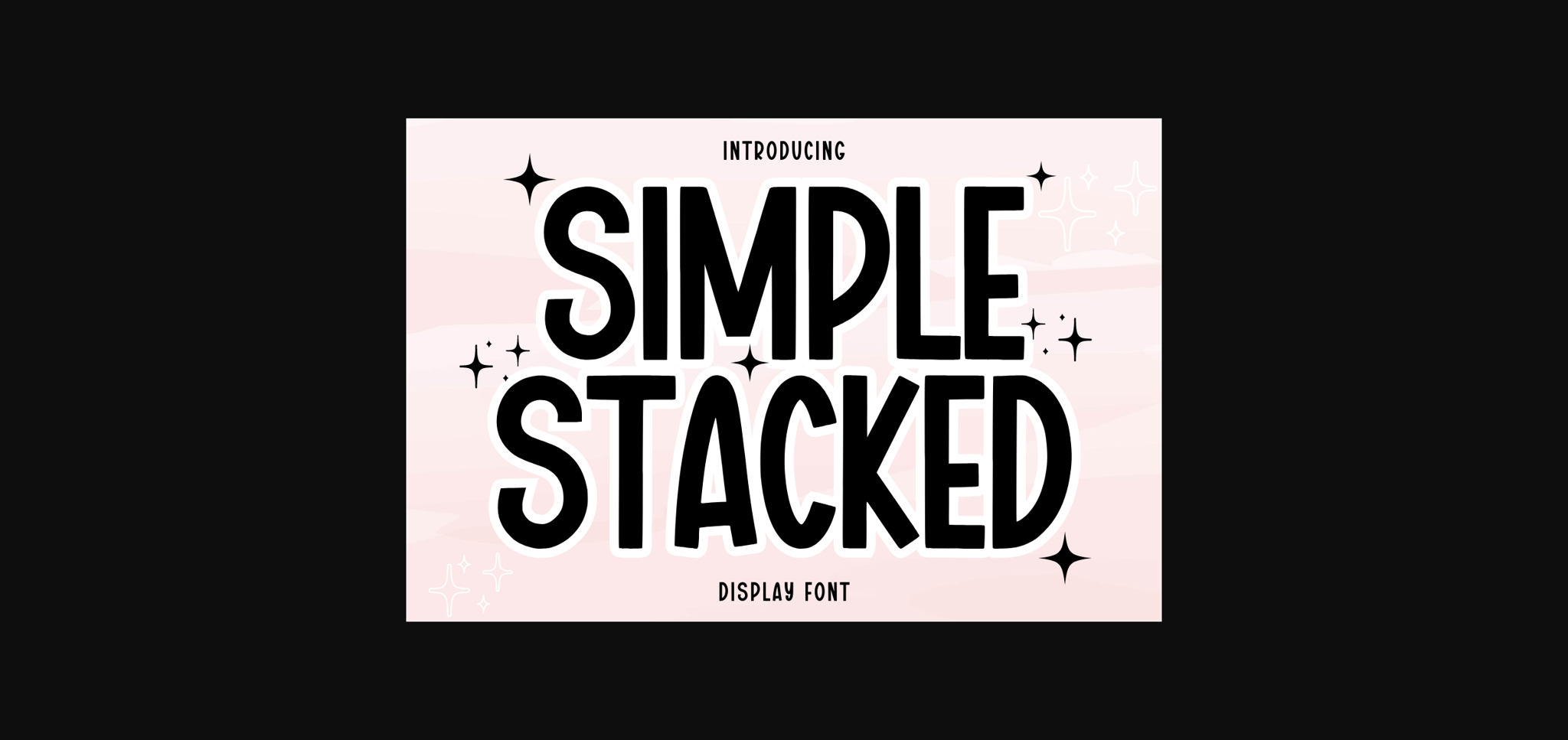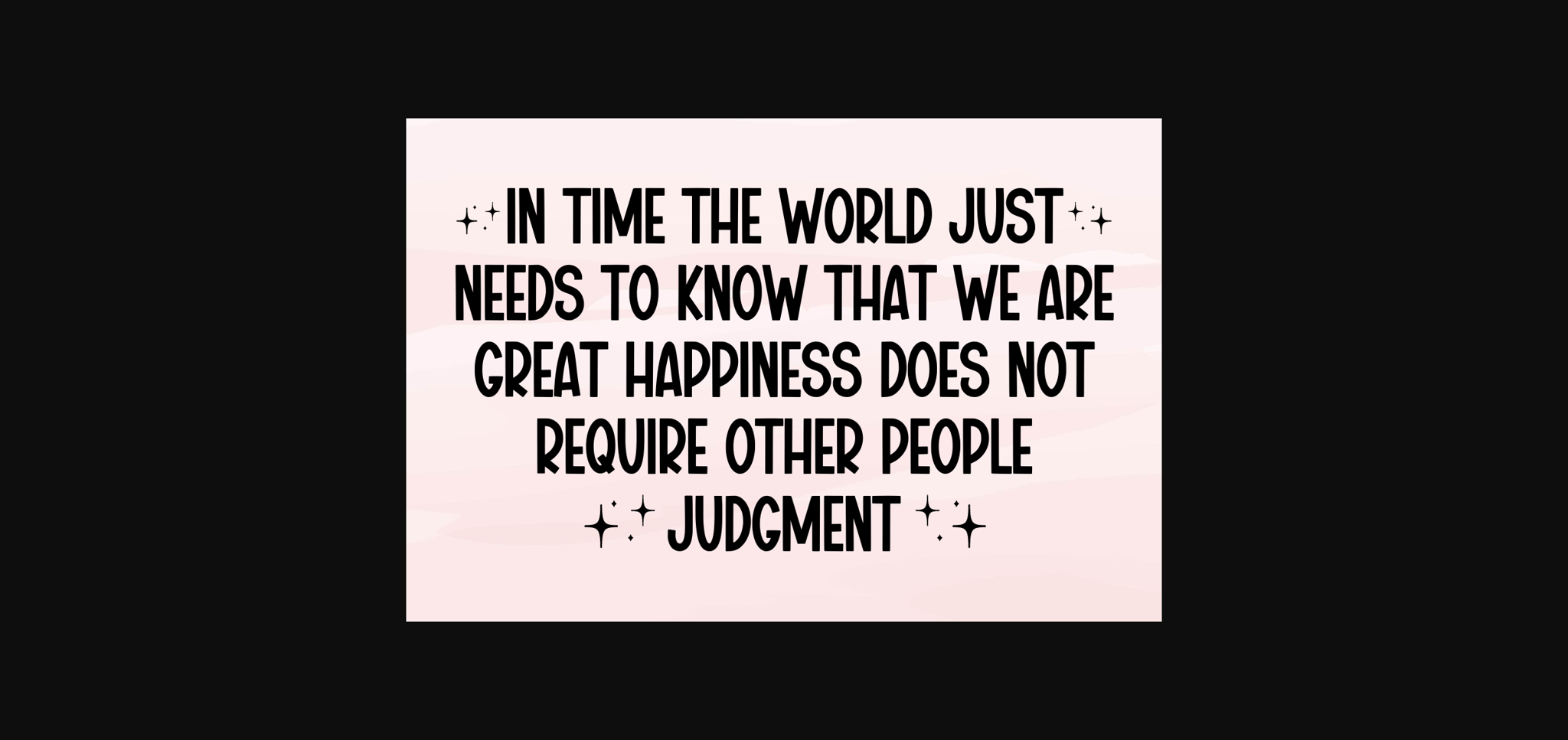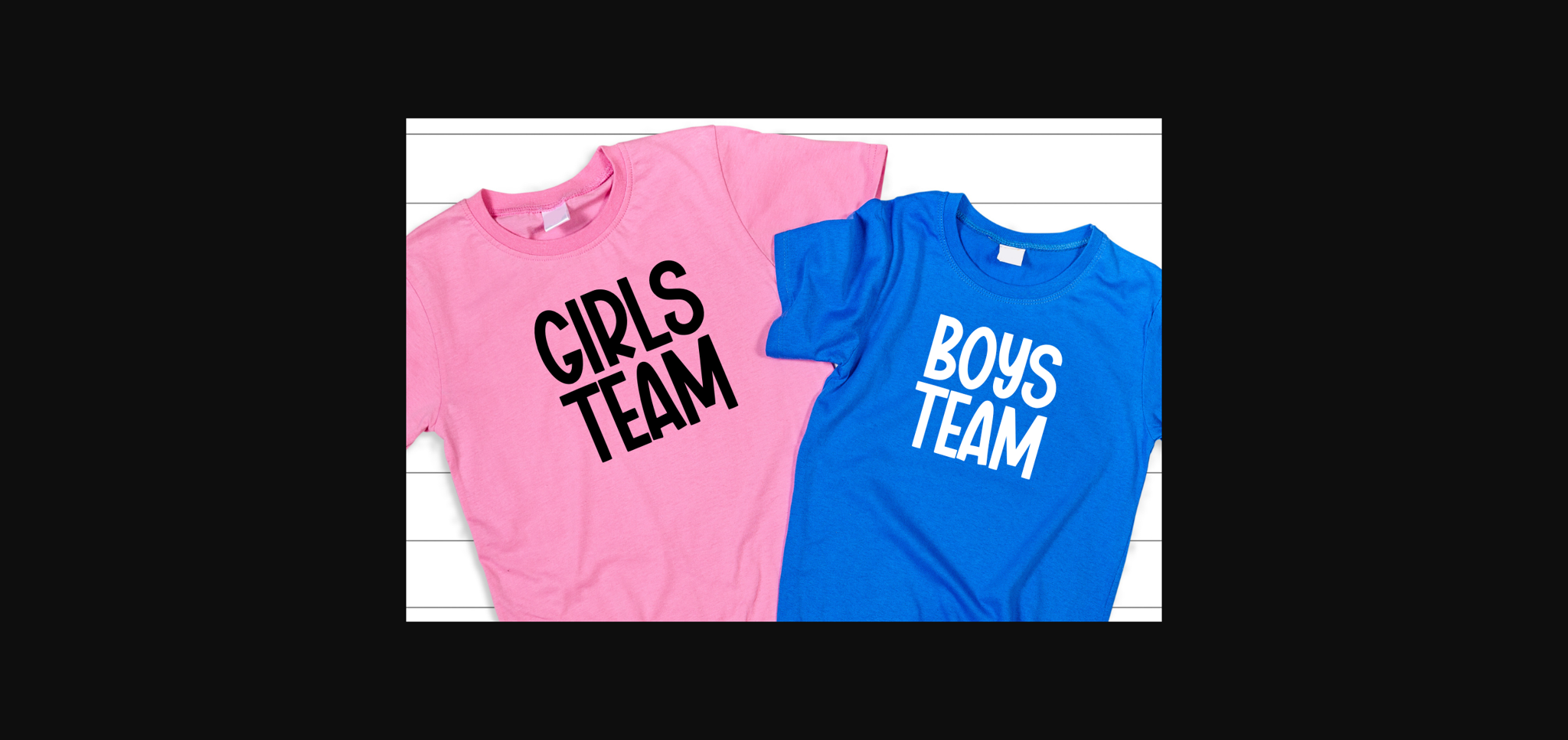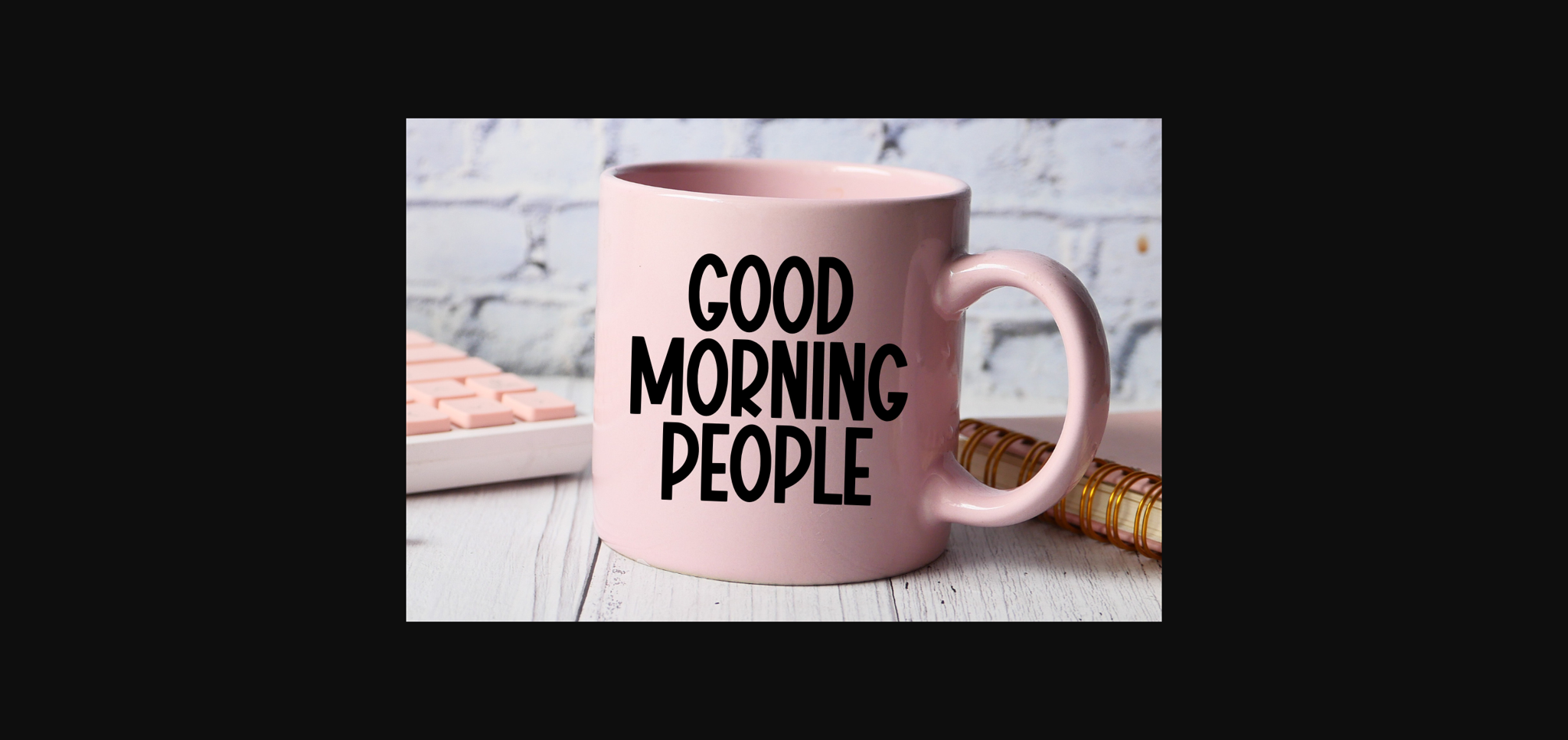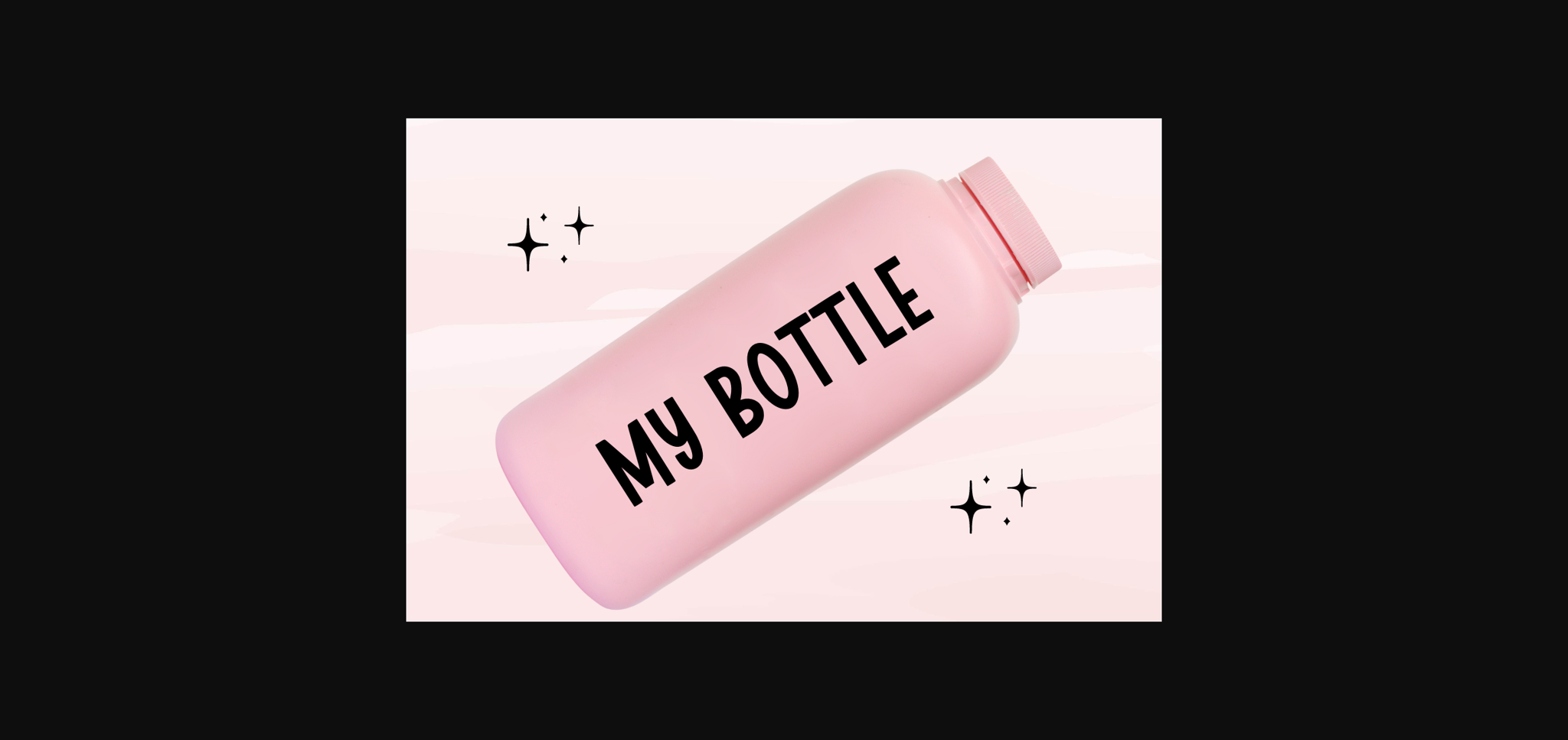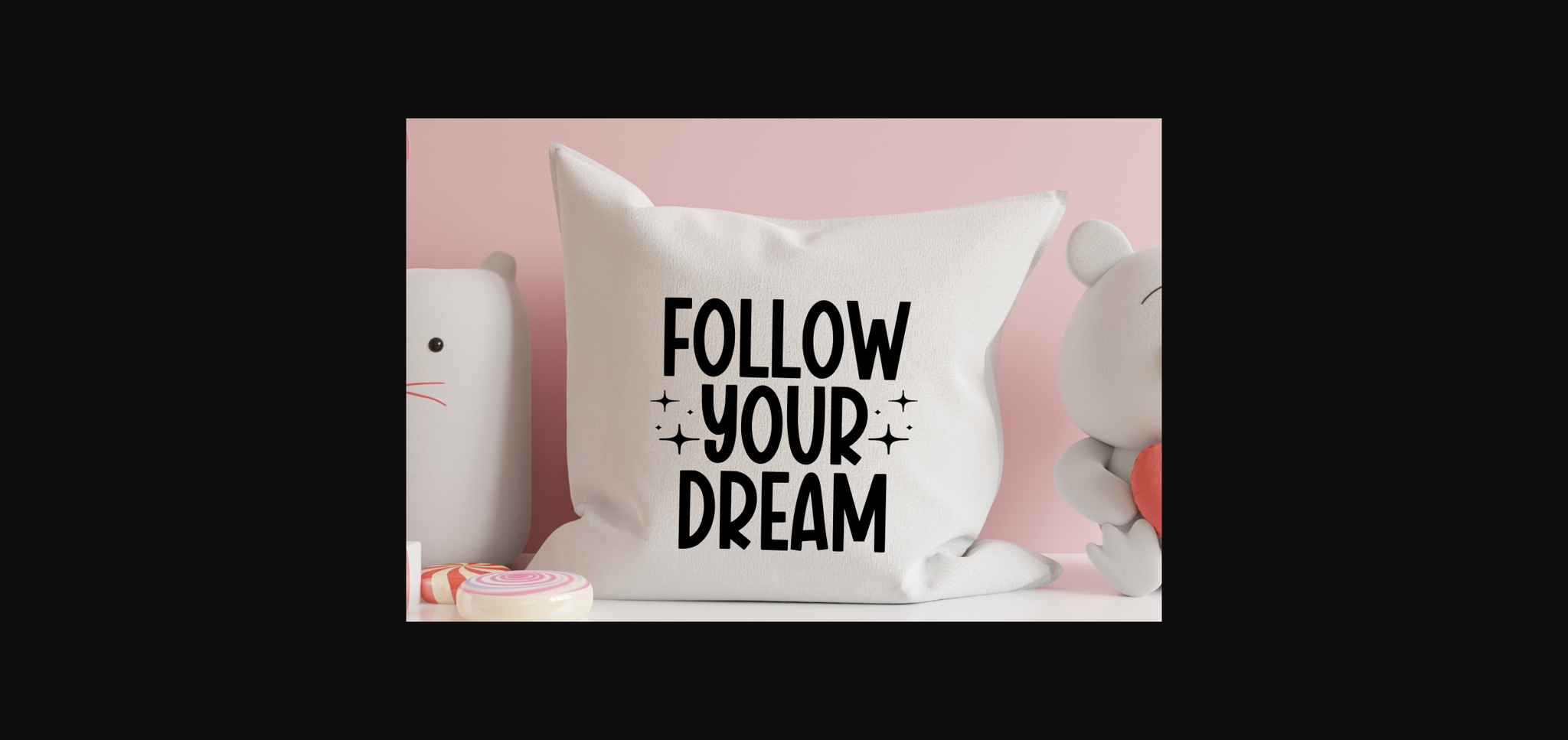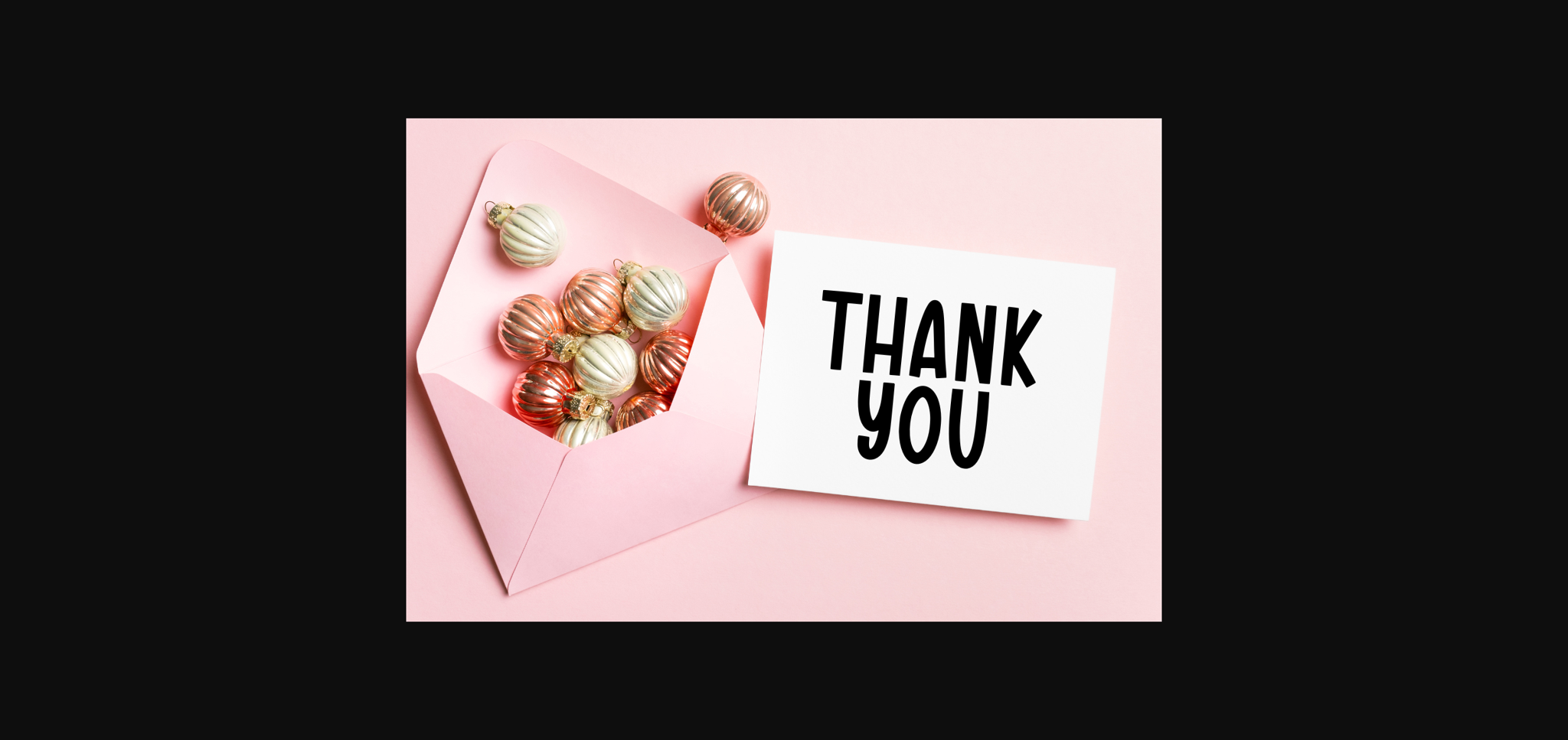
HomeSans Serif FontsSimple Stacked Font Sans Serif Fonts Simple Stacked Font FacebookXPinterestWhatsApp 1 of 9 ... Simple Stacked Font Poster 2... Simple Stacked Font Poster 3... Simple Stacked Font Poster 4... Simple Stacked Font Poster 5... Simple Stacked Font Poster 6... Simple Stacked Font Poster 7... Simple Stacked Font Poster 8... Simple Stacked Font Poster 9... About Simple Stacked Font Simple Stadcke is a fun and unique sans-serif font. Whatever the topic, this font will be a wonderful asset to your font library, as it has the potential to enhance any creation. DOWNLOAD NOW People also explored Startled Font Withdrew Font Minimalist Writing Font Bunny Love Font Moveri Font Simplicity Font Lodense Font Love Motif Font Mezza Extra Light Font 308 0 TagsSimple Stacked Font Previous articleStronger FontNext articleSuper Power Font LEAVE A REPLY Cancel reply Comment: Please enter your comment! Name:* Please enter your name here Email:* You have entered an incorrect email address! Please enter your email address here Website: Save my name, email, and website in this browser for the next time I comment. Personal Use Free Almonte Personal Use Free Read more about this font Girls Personal Use Free Read more about this font Zalitta Personal Use Free Read more about this font Abingdon Personal Use Free Read more about this font BLOG Using Fonts in Digital Marketing: Tips to Strengthen Your Brand Identity In the realm of digital marketing, every visual element plays a crucial role in shaping a brand's identity, and fonts are no exception. The... Free vs Paid Fonts: Why Investing in Premium Fonts Is Worth It How to Install and Use Fonts on Windows, macOS, and Web Projects Fonts That Capture the Spirit of New York City